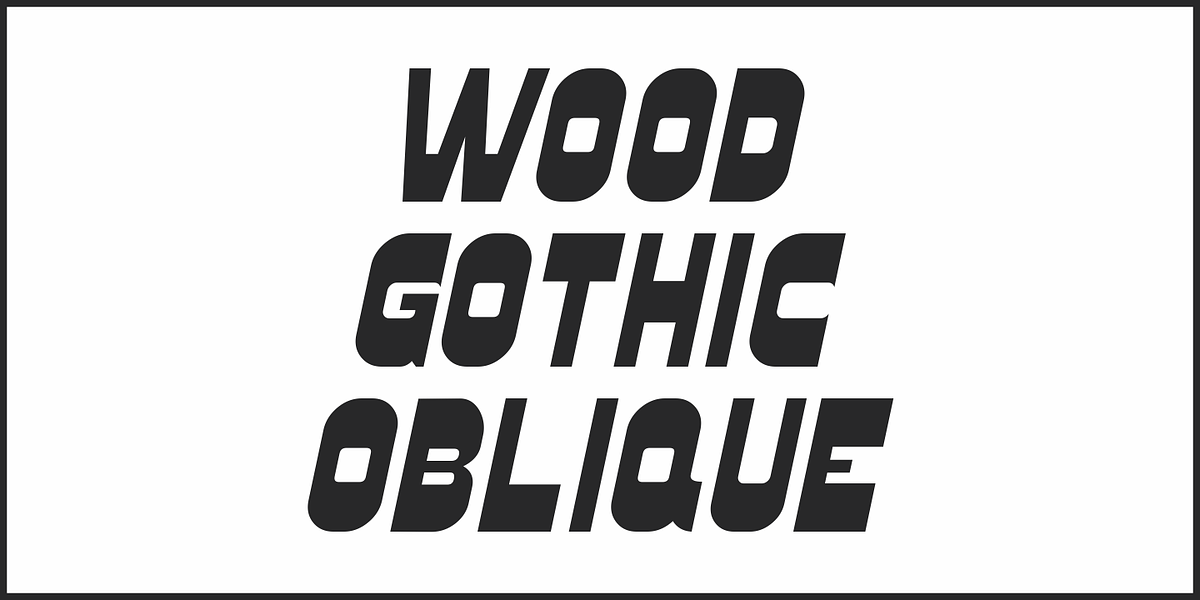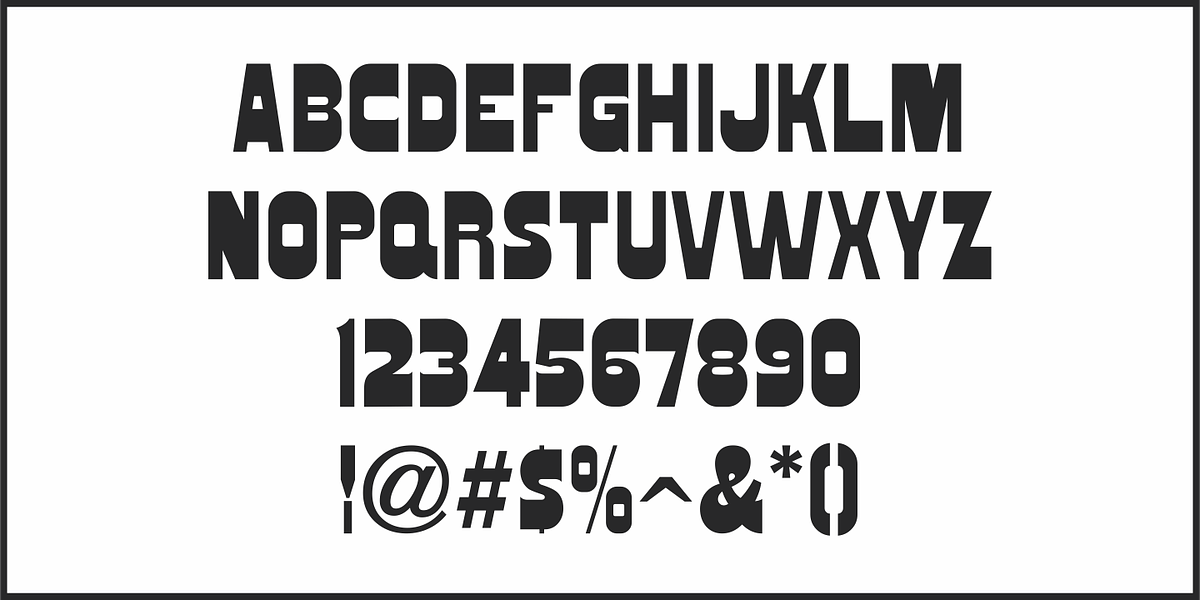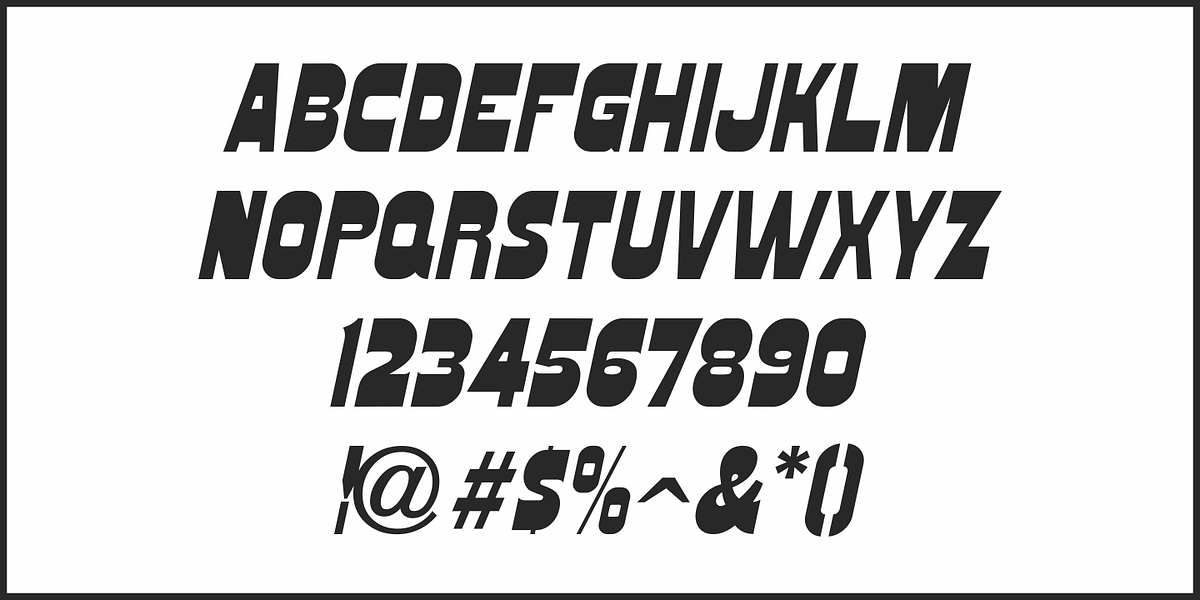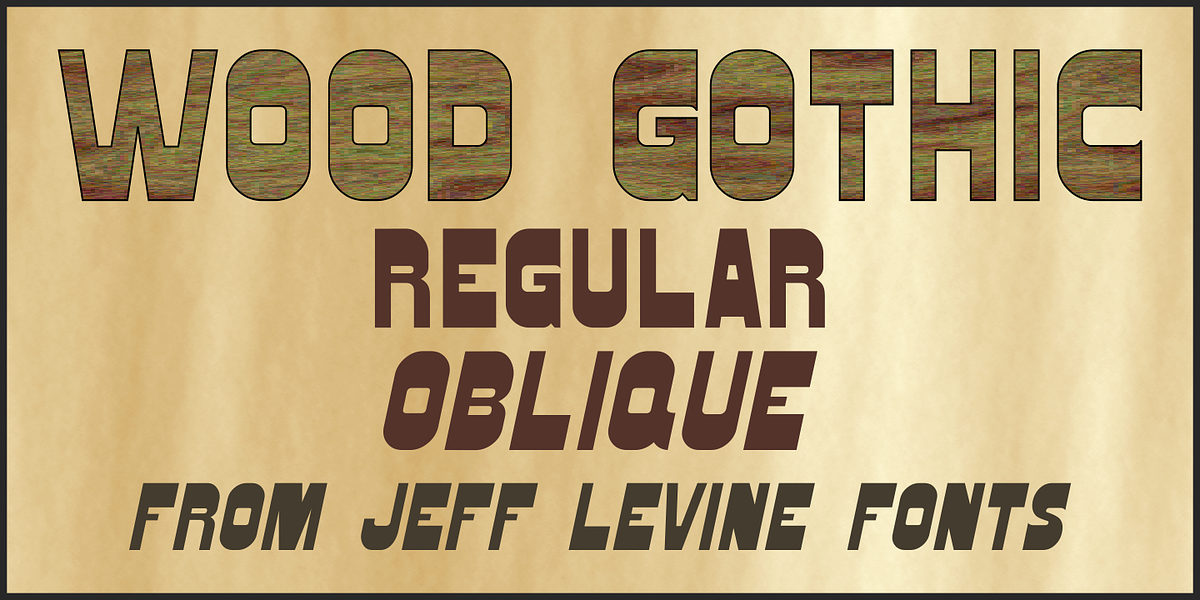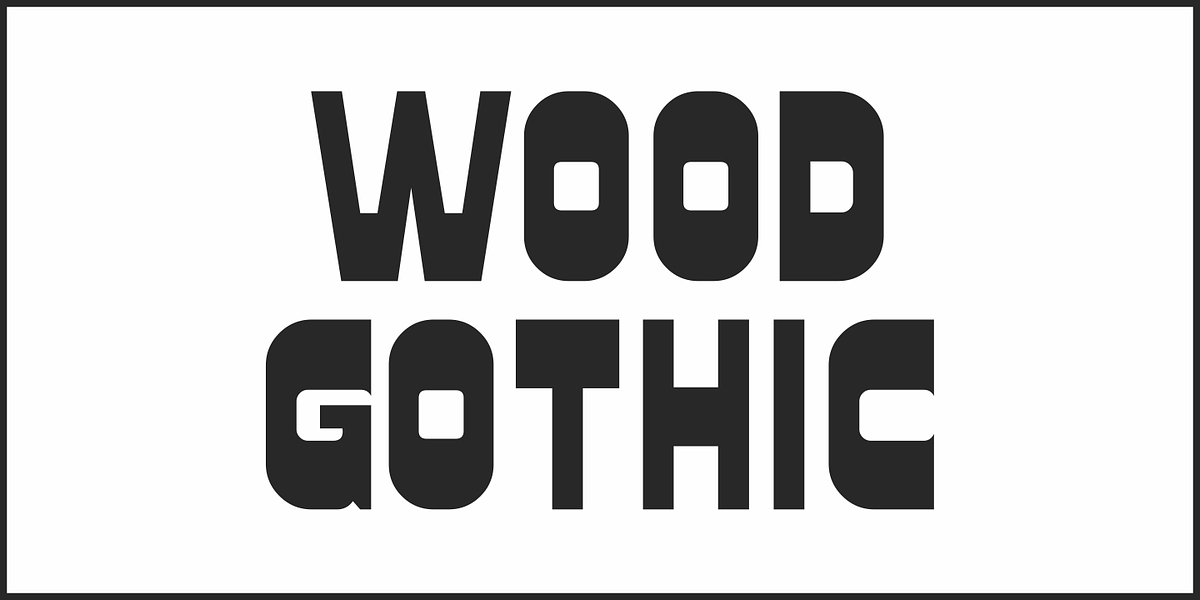
Wood Gothic JNL
One of the classic designs of the wood type era is Hamilton Gothic Bold [from the Hamilton Wood Type Foundry circa 1889].
Clean and timeless, it even had found a resurgence during the rock and roll posters of the 1960s, where vintage wood types and Art Nouveau influences merged with the “Hippie Counterculture”.
Wood Gothic JNL is available in both regular and oblique versions.